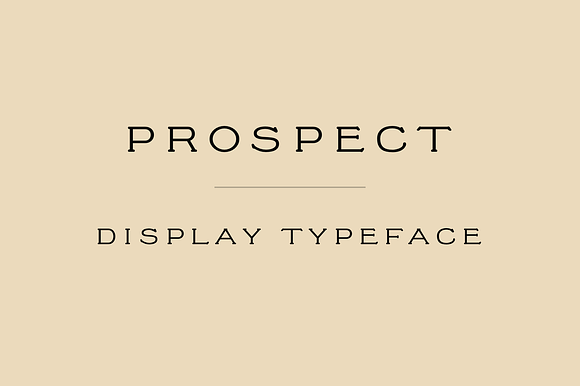
Prospect, Display font
An antique-style all-caps display font
Prospect, Display font by Pilgrim Fonts fits naturally into Branding, posters, packaging, typography.